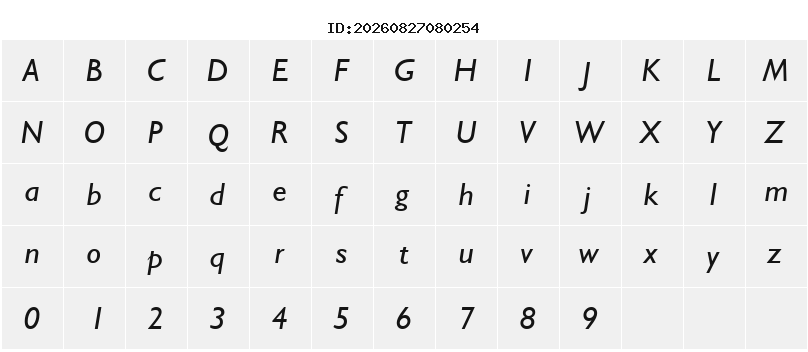
439-CAI978 Preview
About 439-CAI978.ttf
439-CAI978.ttf is a modern, elegant sans-serif font designed for ultimate readability and visual harmony. Perfect for branding, headlines, web design, and print materials.